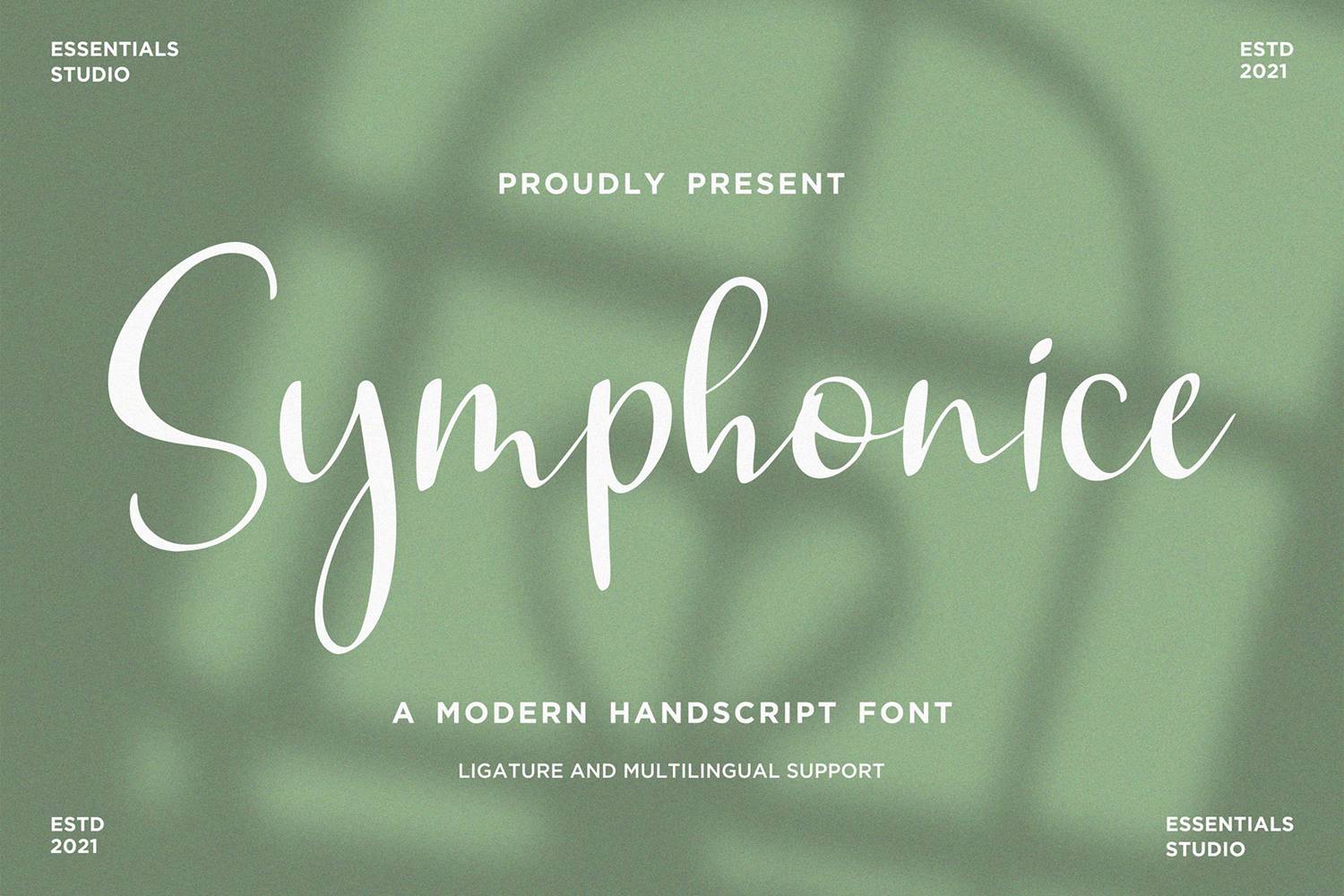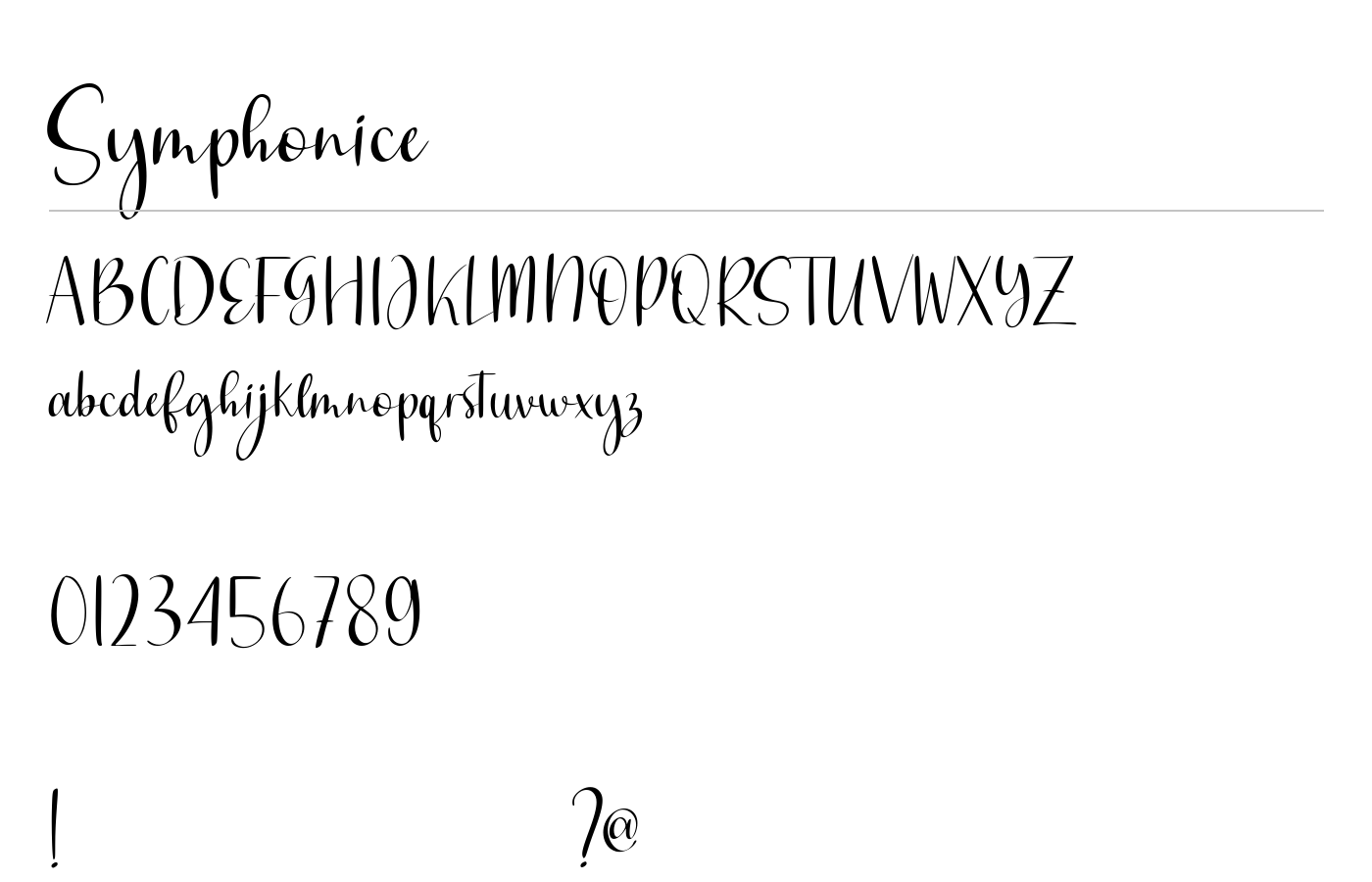
Symphonice is an elegant script font with a delicate, flowing style that combines thin, graceful strokes and a touch of whimsy in its letterforms. Its tall x-height and slender letters convey a modern yet charming personality, making it ideal for invitations, branding, and creative projects where a light, sophisticated feel is desired. This font works beautifully in headlines or short text, adding a refined and artistic touch to designs.
Symphonice Font
About Symphonice Font
| Font family | Symphonice Font |
| Designer | Bagus Panji Asmoro |